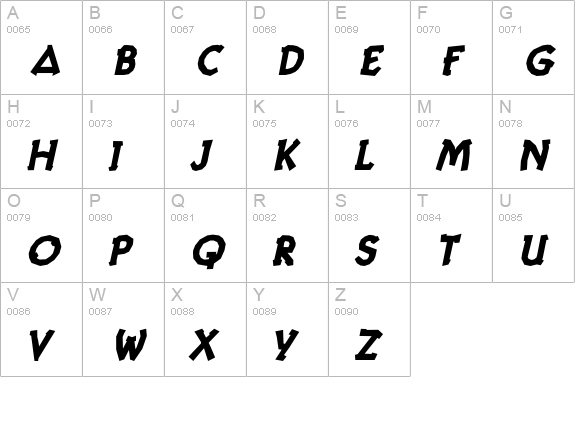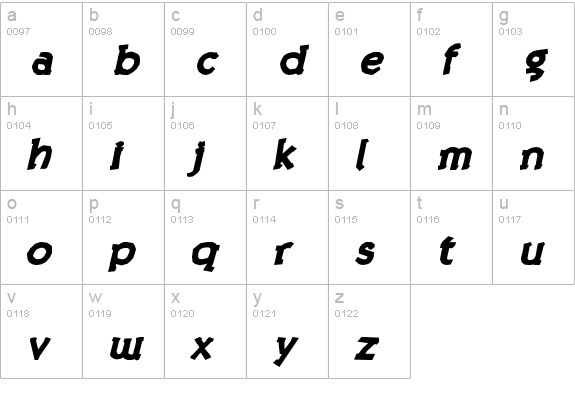
Twig Black Oblique is a maximum-weight, dramatic, italic variant in the Twig typeface family \xE2\x80\x94 well suited to maximum-impact headlines, posters, and packaging.
Twig Black Oblique is a stunning and versatile font that exudes modernity and sophistication. Its sleek and angular design captures attention and adds a contemporary touch to any project. With its slanted and bold letterforms, Twig Black Oblique brings a sense of boldness and edginess to your designs. This font is perfect for a wide range of creative projects, including branding, logo design, advertising, packaging, and more. Its unique and captivating style makes it ideal for creating eye-catching headlines, titles, and attention-grabbing graphics. One of the best things about Twig Black Oblique is that it is available for free! You can easily download this font from FontsMarket.com, a trusted and reliable source for high-quality fonts. Whether you are a professional designer or a hobbyist, this free download allows you to explore the endless possibilities of Twig Black Oblique without breaking the bank. Not only does Twig Black Oblique offer a striking visual impact, but it also provides excellent legibility, ensuring that your message is clear and easily readable. Its clean lines and well-defined shapes make it a versatile font that can be used in a variety of design contexts. So why wait? Enhance your designs with the bold and contemporary style of Twig Black Oblique. Download it for free at FontsMarket.com and unleash your creativity today.